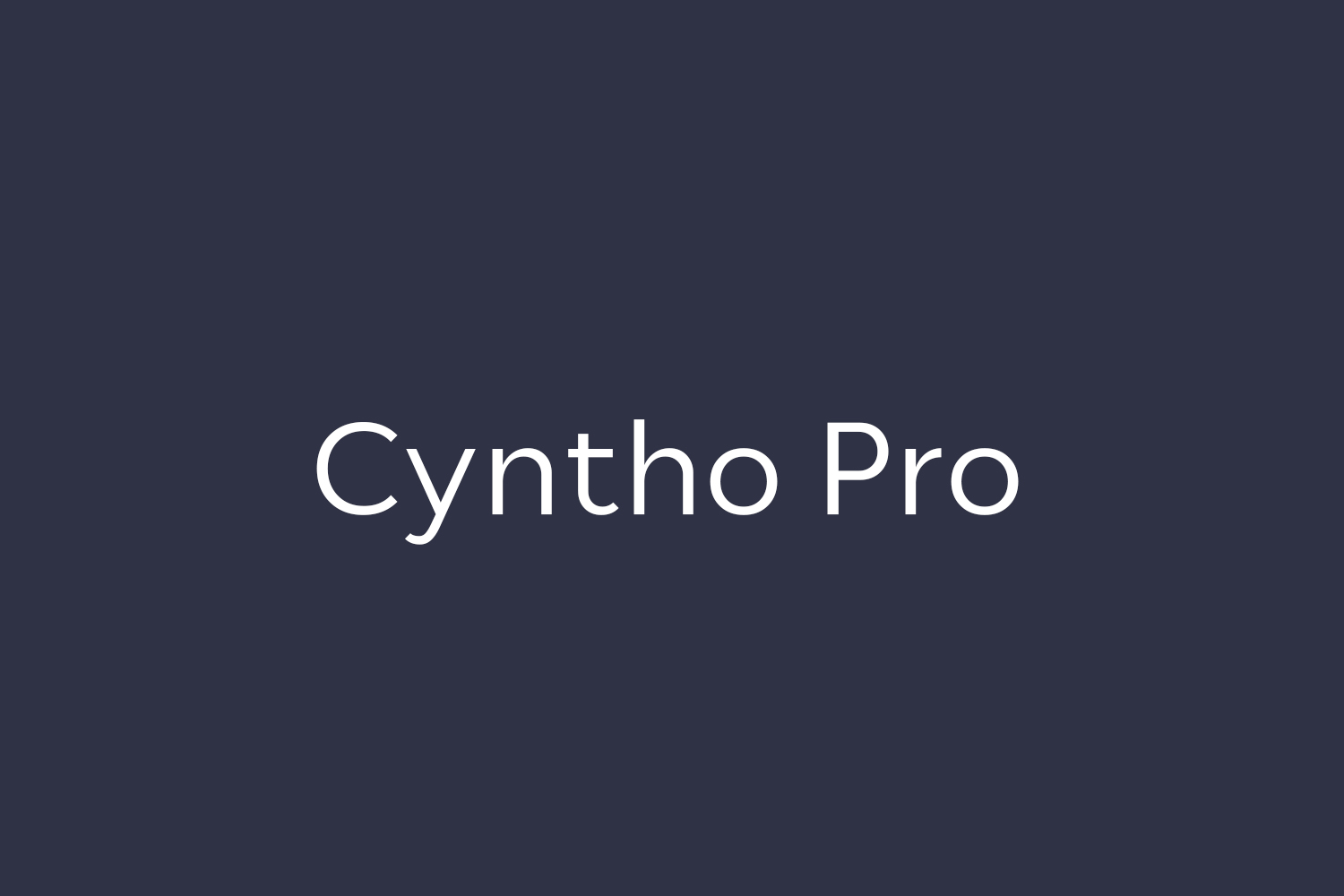
Cyntho Pro Free Font Family is a modern geometric sans with eight weights varying from Thin to Black and featuring Cyrillic and Greek scripts.
Designed by Mint Type